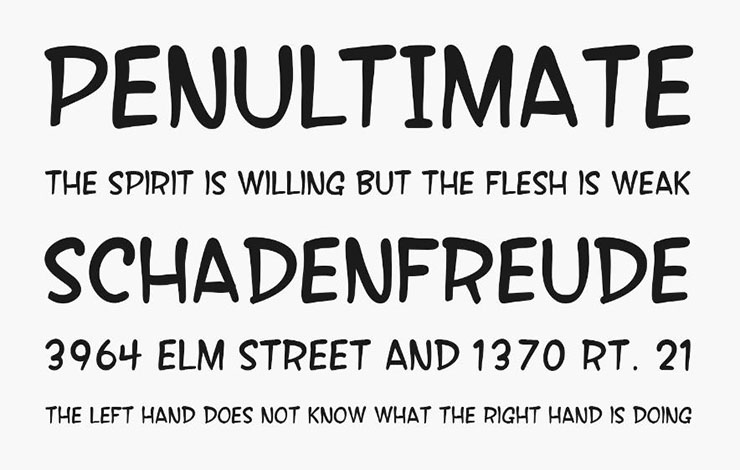
SF Wonder Comic Font is a fun and whimsical typeface created by ShyFonts. It is a playful fancy comic font that captures the essence of comic books and cartoons, making it an excellent choice for a variety of design projects.
The font features bold, rounded letterforms that are reminiscent of the hand-drawn style of comic book lettering. This font family comes in 8 different styles that contain 221 glyphs and 112 binary stored kerning pairs.
Its unique design and quirky personality make it a perfect choice for titles, captions, and speech bubbles in comics, graphic novels, and other forms of visual storytelling.
SF Wonder Comic Font is also a versatile typeface, suitable for a range of applications beyond comics. Its playful and fun design can be used for posters, flyers, advertisements, and other materials where a lively and energetic look is desired.
Its playful design and versatility make it an excellent choice for designers looking to add a touch of whimsy and fun to their projects.
You can design a logo, create a movie title, compose a comic or regular book cover, cartoon titling, child gift cover, create delightful invitations or wedding cards, and even print on shirts and paints in the clothing industry.